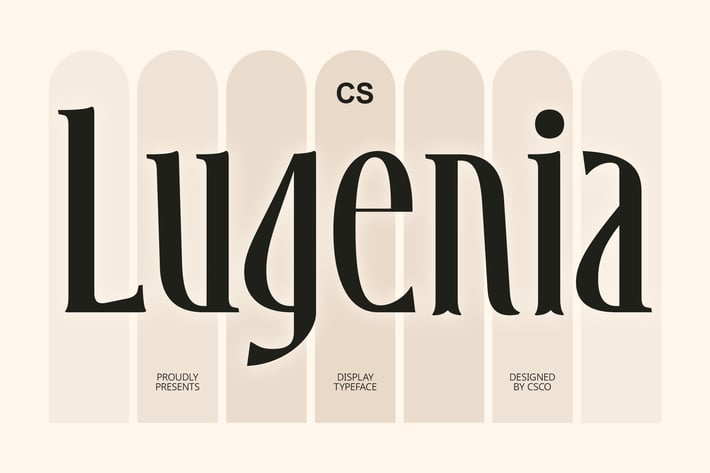
Lugenia – Classic Font
Lugenia – Classic Font: Timeless Elegance with Modern Sophistication
Sleek and Minimalist Classic Serif Design
CS Lugenia – Classic Font is a refined serif display typeface that embodies both modern minimalism and timeless elegance. With its balanced proportions and graceful letterforms, this font offers a sophisticated presence that enhances any luxury-oriented design.
Subtle Contrast and Delicate Details
Designed with a subtle contrast between thick and thin strokes, CS Lugenia creates a refined and polished aesthetic. The delicate details add charm and exclusivity, making it an excellent choice for high-end branding, premium editorial layouts, and sophisticated product packaging.
Perfect for Luxury and Fashion Branding
CS Lugenia excels in fashion magazines, upscale logos, and exclusive packaging designs. Its classic yet contemporary appeal makes it a go-to font for premium brands that seek a refined and confident visual identity. Whether used in headlines or display text, its elegant curves and structured forms ensure a lasting impression.
A Modern Classic for High-End Visual Identities
Blending traditional serif elements with a sleek, modern touch, CS Lugenia is the perfect choice for brands and designers looking to create a timeless aesthetic. From boutique fashion houses to luxury cosmetics and upscale invitations, this font delivers sophistication and class in every design.